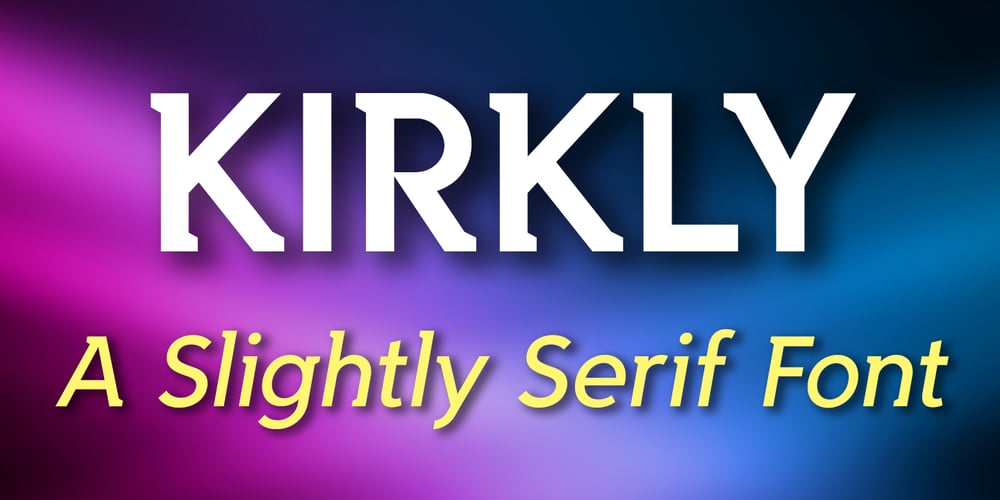
Kirkly Font Family was designed by Kirk Lyford and published by Kirk Font Studio. Kirkly contains 14 styles and family package options. Kirkly – A Slightly Serif Font. My first font release is an imaginative hybrid font family that is a mix between a sans serif and serif design. Kirkly is a clean, stylish, design that conveys strength, movement and creativity.Kirkly is a distinctive, easy-to-read font family consists of 14 styles. It’s an Adobe Latin 3 Character Set containing 300 glyphs per style. Kirkly works great in long form typesetting and headlines.